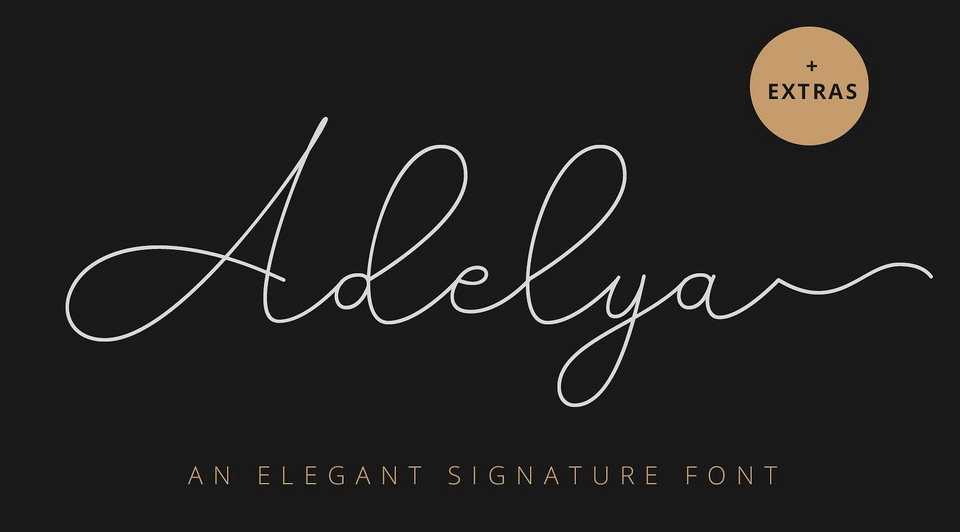
Download Adelya script, an elegant signature font with a free-flowing monoline style. Using your imagination and some graphic design set in Extras, your project will become more alive and look great than ever with one of the Adelya font.